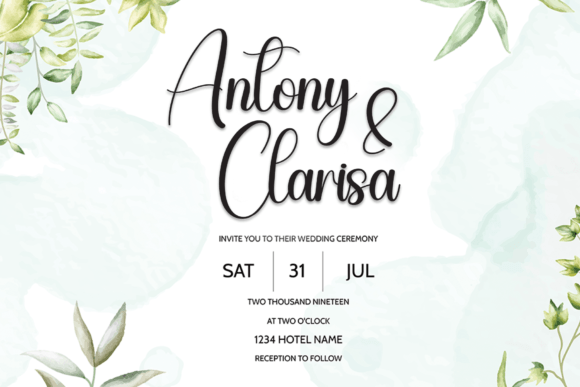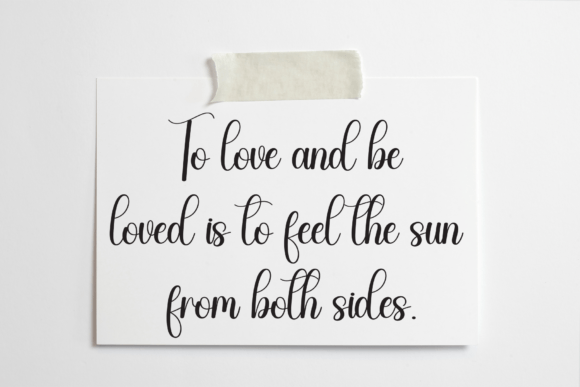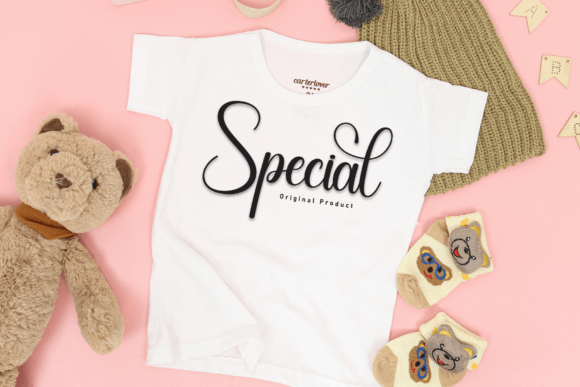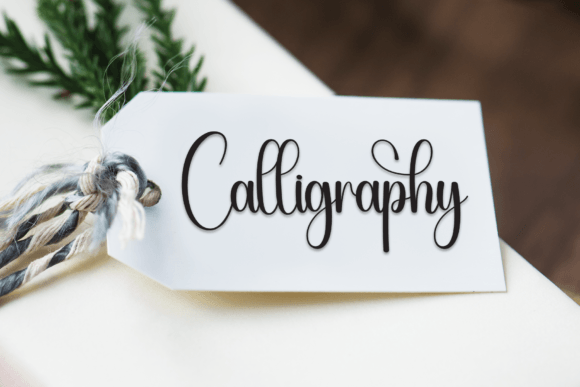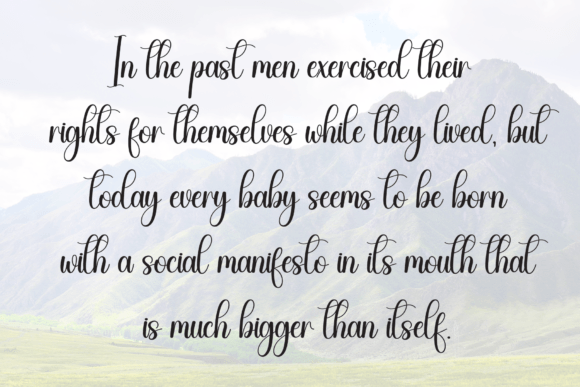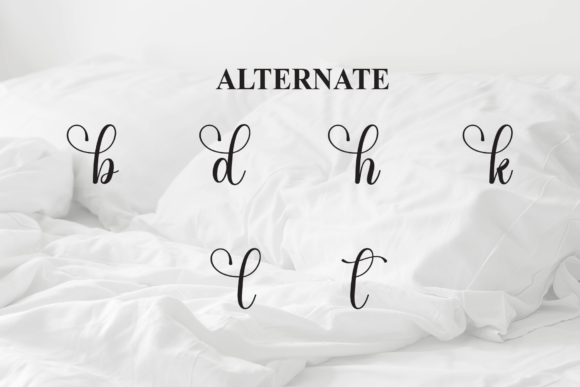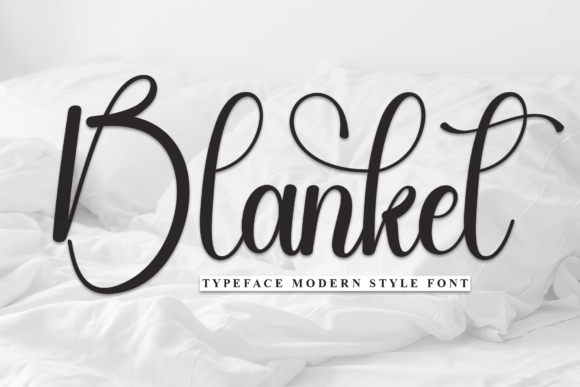
Introducing Blanket Font: The Ultimate Elegance for Your Designs
Are you a designer or crafter looking for a font that exudes elegance and sophistication? Look no further than the Blanket Font. This stylish and incredibly elegant script font is perfect for adding a handwritten touch to your designs. From wedding invitations to business cards, Blanket Font is the ideal choice for anyone seeking to create stunning visual content.
The Characteristics of Blanket Font
Blanket Font is a script font that boasts a range of characteristics that make it stand out from the crowd. Its elegant and flowing lines give it a sophisticated feel, making it perfect for designs that require a touch of luxury. The font is highly legible, even at small sizes, making it versatile for use on a variety of materials.
Uses of Blanket Font
One of the best things about Blanket Font is its versatility. It can be used on a wide range of design materials, including:
- Wedding invitations: Add a touch of romance and elegance to your wedding invitations with Blanket Font.
- Thank you cards: Express your gratitude in style with Blanket Font.
- Quotes: Make your quotes stand out with the elegant and sophisticated look of Blanket Font.
- Greeting cards: Create beautiful and heartfelt greeting cards with Blanket Font.
- Logos: Use Blanket Font to create a luxurious and sophisticated logo for your business.
- Business cards: Make a lasting impression with Blanket Font on your business cards.
Why Choose Blanket Font?
So why should you choose Blanket Font for your designs? Here are just a few reasons:
- Elegance: Blanket Font is incredibly elegant and sophisticated, making it perfect for designs that require a touch of luxury.
- Versatility: Blanket Font can be used on a wide range of design materials, making it a versatile addition to your font collection.
- Legibility: Blanket Font is highly legible, even at small sizes, making it perfect for use on a variety of materials.
- Uniqueness: Blanket Font is a unique and stylish font that will set your designs apart from the crowd.
Tips for Using Blanket Font
Here are a few tips for using Blanket Font in your designs:
- Pair it with a sans-serif font: Pairing Blanket Font with a sans-serif font can create a beautiful contrast and add visual interest to your designs.
- Use it sparingly: While Blanket Font is elegant and sophisticated, it can be overwhelming if used too much. Use it sparingly to create a lasting impression.
- Experiment with colors: Blanket Font looks stunning in a range of colors, from classic black and white to bold and bright hues. Experiment with different colors to find the perfect look for your design.
In conclusion, Blanket Font is a stylish and incredibly elegant script font that is perfect for designers and crafters looking to add a touch of luxury to their designs. Its versatility, legibility, and uniqueness make it a valuable addition to any font collection. Whether you’re creating wedding invitations, business cards, or quotes, Blanket Font is the ideal choice. So why not give it a try and see the difference it can make in your designs?